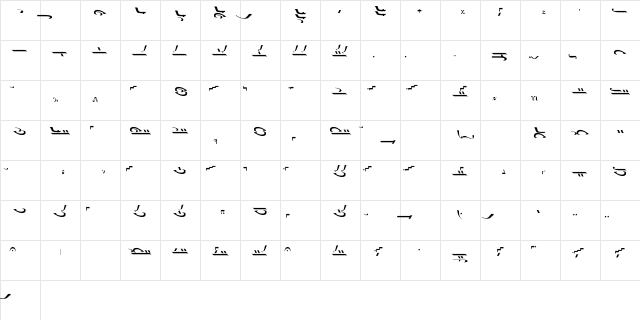
ED Psaltica Regular
Design Context for ED Psaltica Typeface
ED Psaltica takes a measured approach to typography — its balanced proportions and neutral character make it a reliable workhorse for both digital and print work.